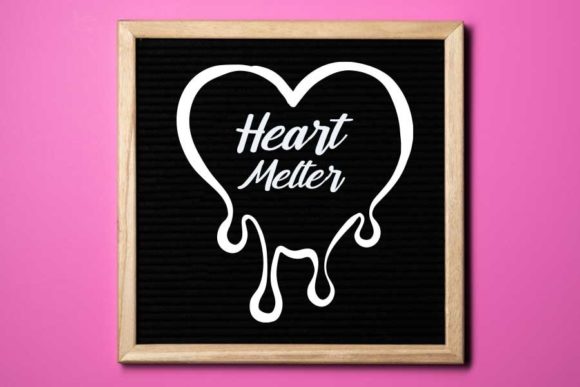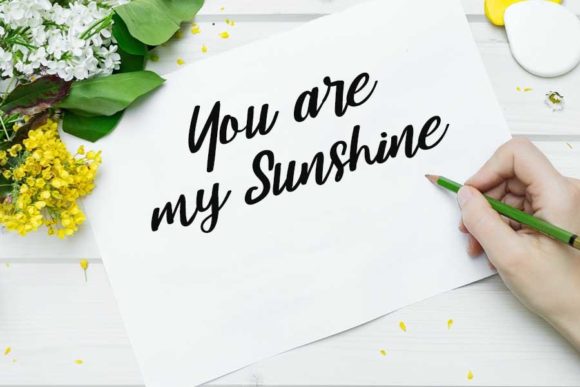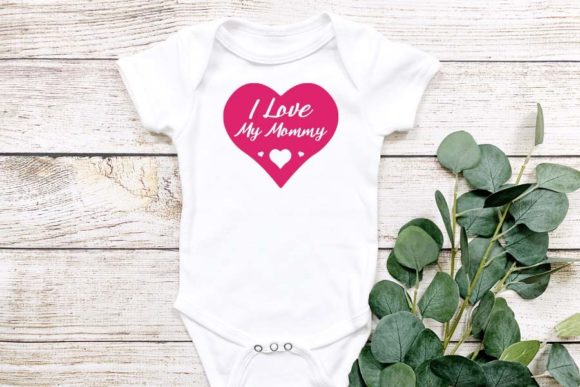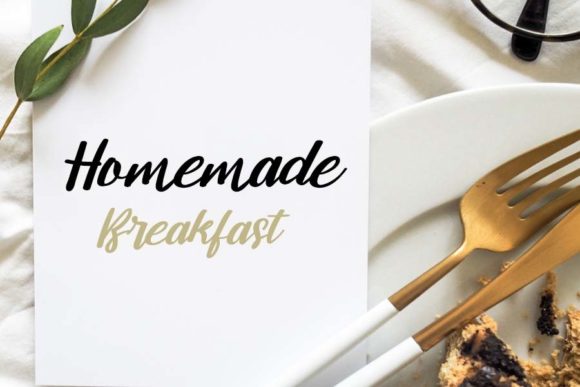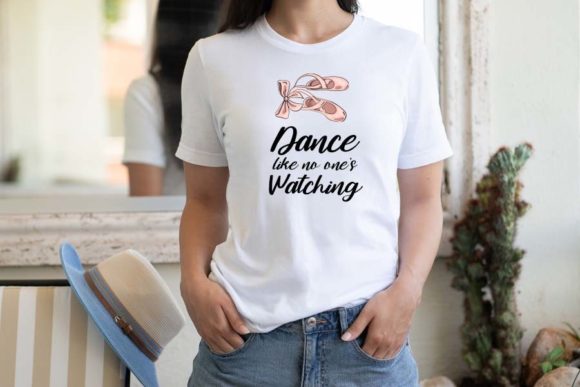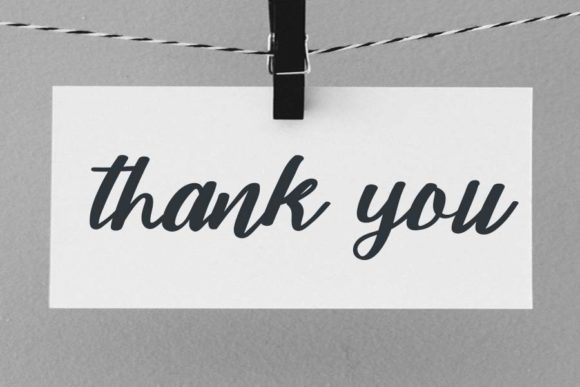
Alphabet Font
About Alphabet Font
Alphabet is a cursive and beautiful script font. Dainty and joyful, this font will be ideal for writing wedding invitations, cards or any other design that may need a romantic, personalized touch!